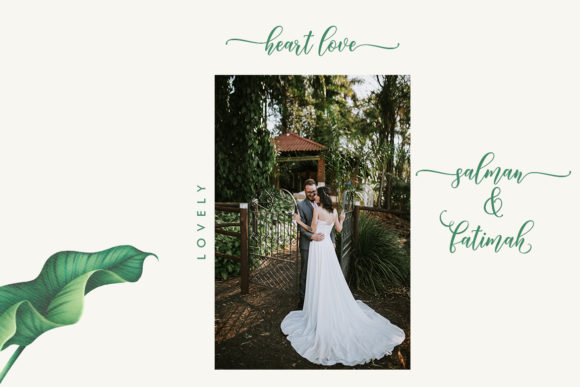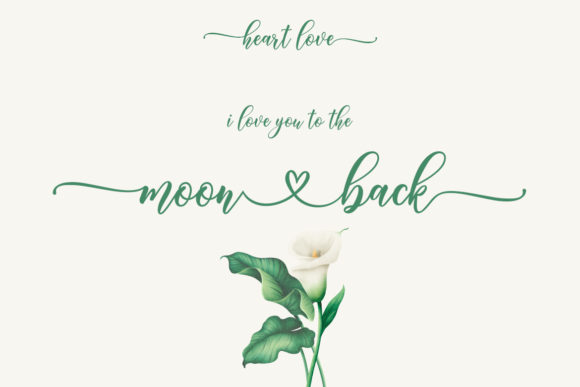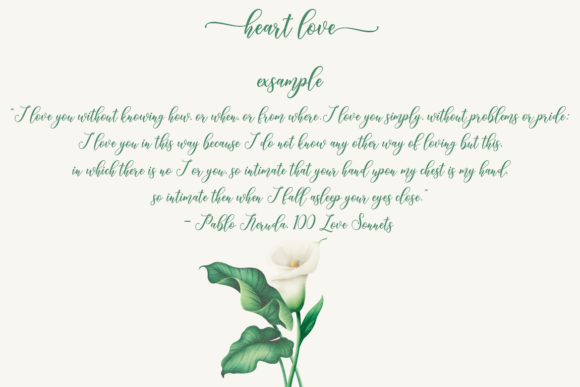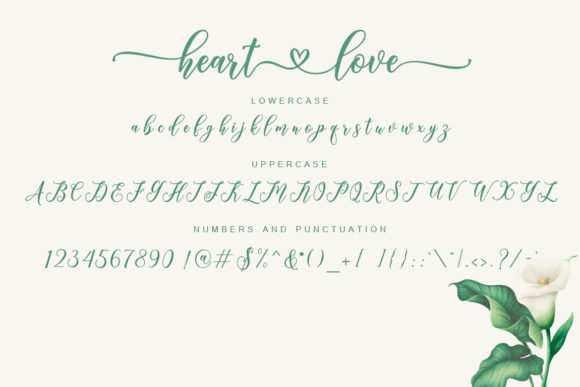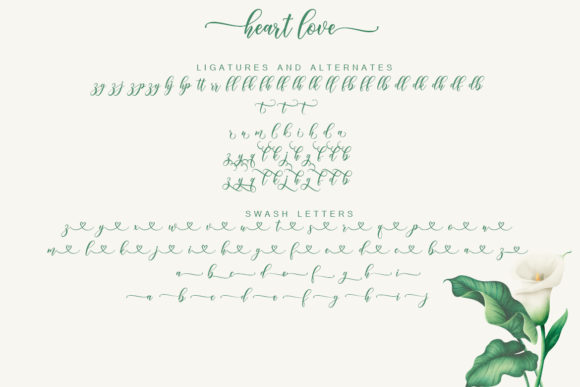
About Heart Love Font
Heart Love is a magical handwritten font carefully created with a touch of elegance. This is a beautiful combination of timeless elegance and authentic calligraphy. It features an incredibly classic style, while still keeping a friendly feel. Heart Love is the perfect font for making original and outstanding designs.